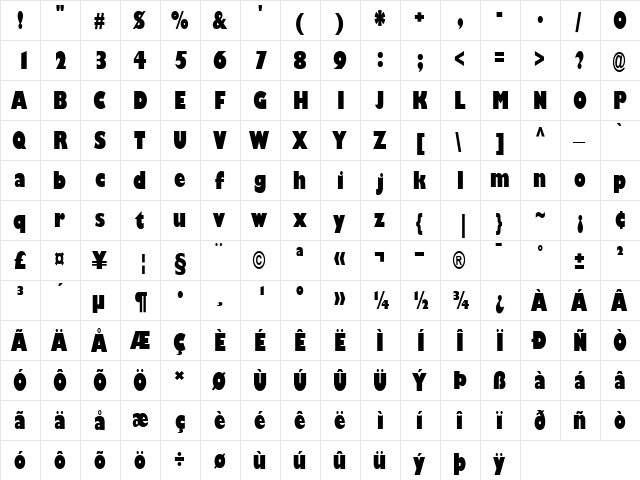
GillSans-CondensedUltraBold Ultra Bold Font Preview
Design Context for GillSans-CondensedUltraBold Typeface
GillSans-CondensedUltraBold is a composed and adaptable typeface that performs quietly and consistently across a wide range of design contexts. The heavy weight commands attention and anchors typographic hierarchies. The condensed width makes it efficient for tight spaces without sacrificing legibility.